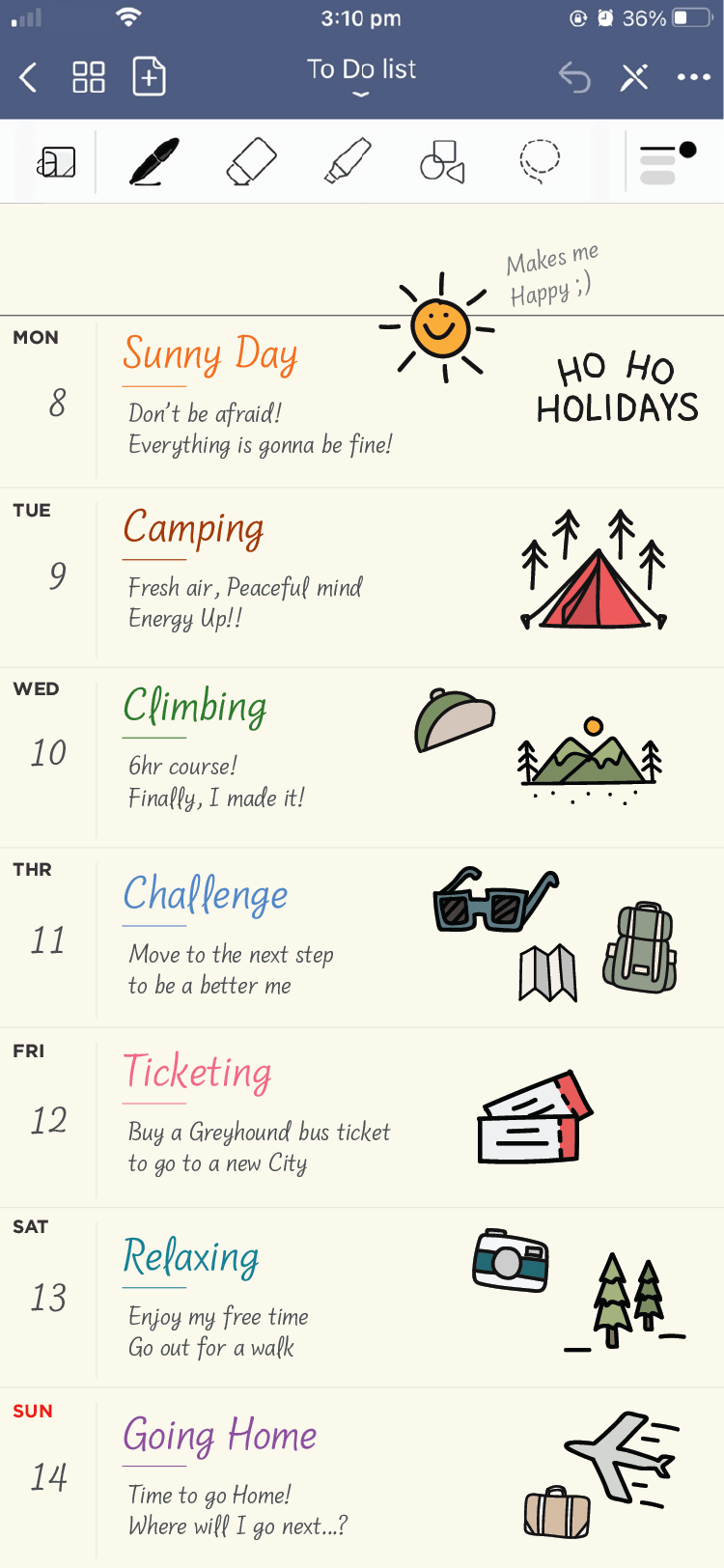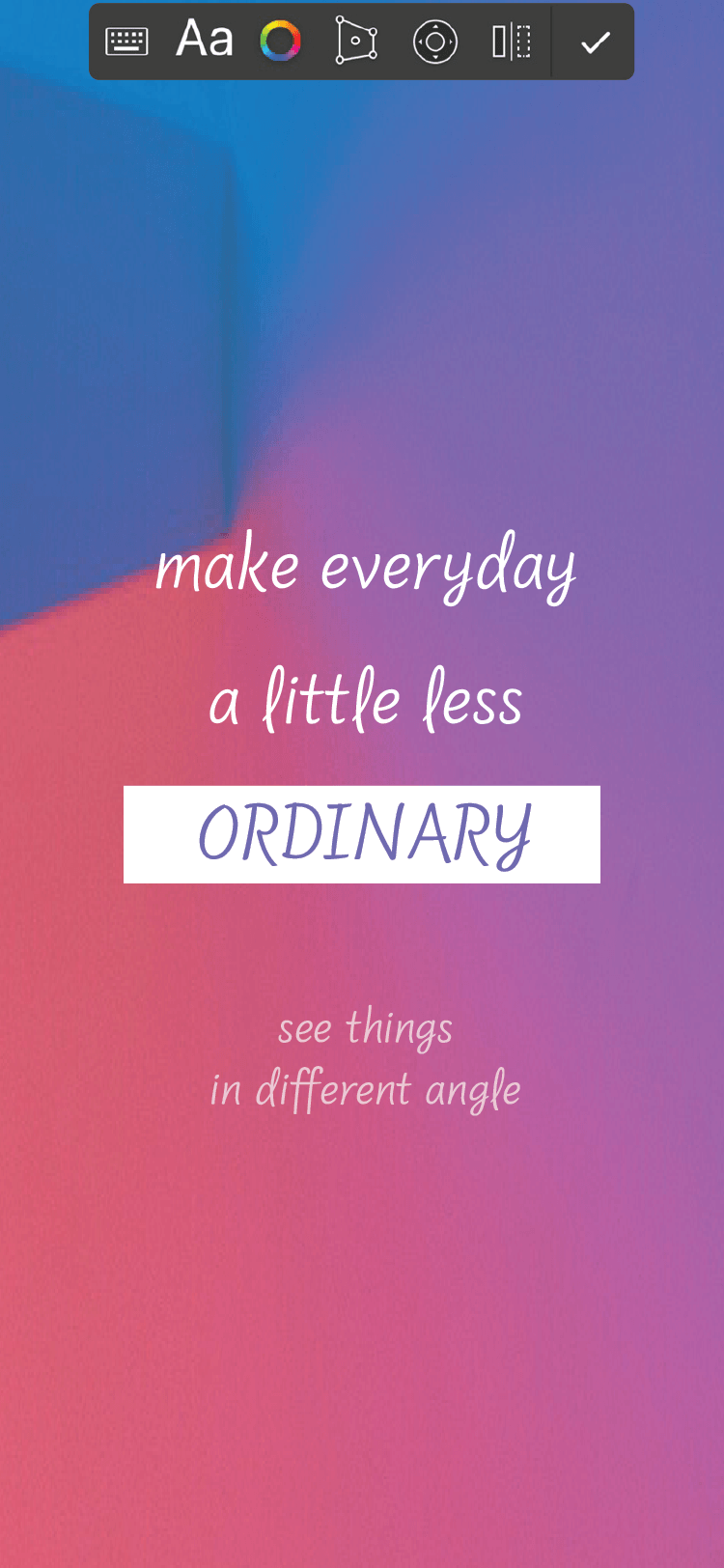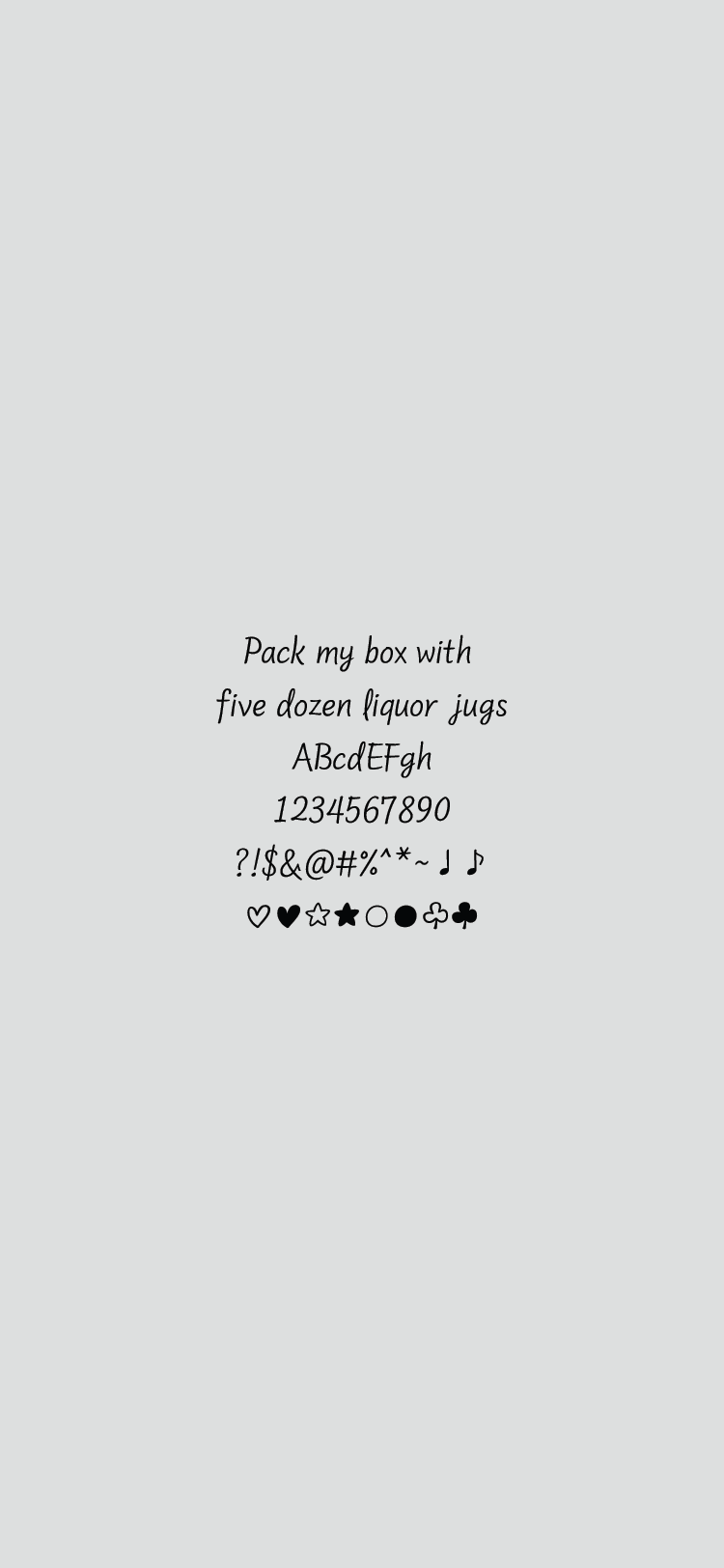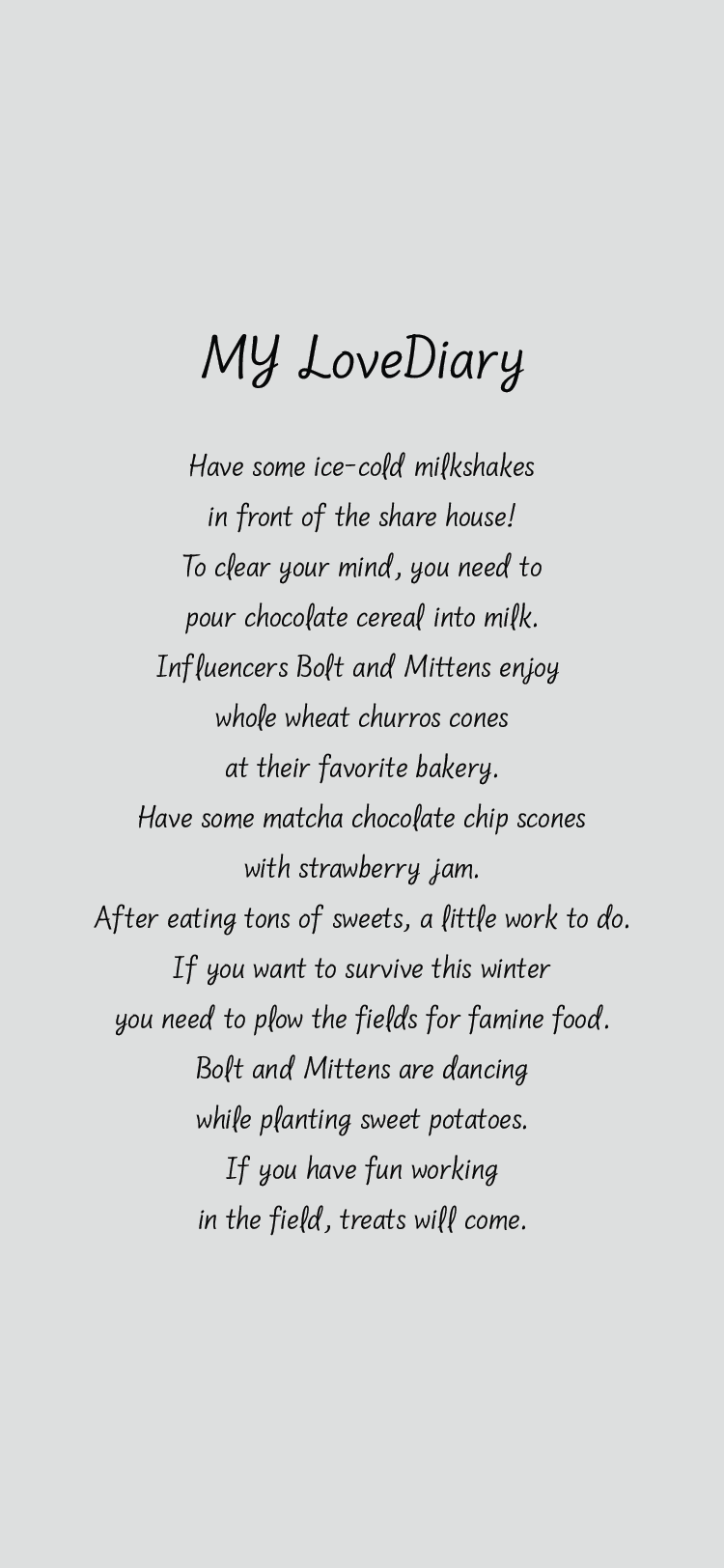
MY LoveDiary
LoveDiary is a handwritten style font. The motif is this font that can give the feeling of writing quickly with a nibbed pen, and it is characterized by it's sharp elegant writing feeling.